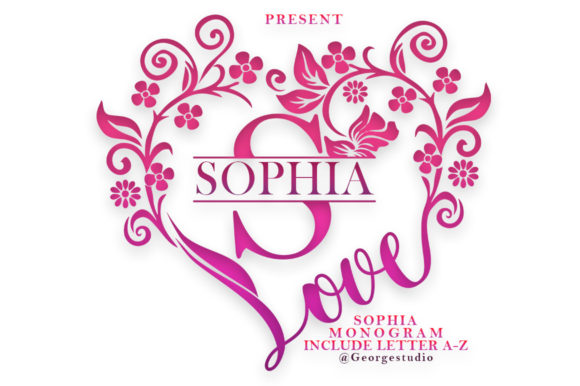
Welcome to the world of Sophia Monogram Font, the best font for love letters. The Sophia Monogram font family is a stunning decorative font designed by George Studio, perfect for anyone looking to add a touch of elegance to their designs. With its unique and charming ornaments, Sophia Monogram Font will captivate your audience and leave a lasting impression on anyone who lays eyes on it.
Sophia Monogram Font is the perfect choice for anyone looking to create ravishing wedding invitations, beautiful stationary art, eye-catching social media posts, and cute greeting cards. Its refined decorative style will elevate any design, making it a must-have for designers and non-designers alike.
The genuine feel of Sophia Monogram Font is something that will make you fall in love with it. Its ornamental details add a touch of sophistication and class to your designs, making it an ideal choice for those looking to create something truly unique.
In addition to its captivating look, Sophia Monogram Font is also highly versatile. You can use it to create a wide range of designs, from vintage to modern, without compromising on style.
Sophia Monogram Font is the perfect choice for anyone looking to create something truly special. Its unique and charming design, combined with its versatility, makes it the ideal font for all your design needs. Download Sophia Monogram Font today and discover why it's the best font for love letters.